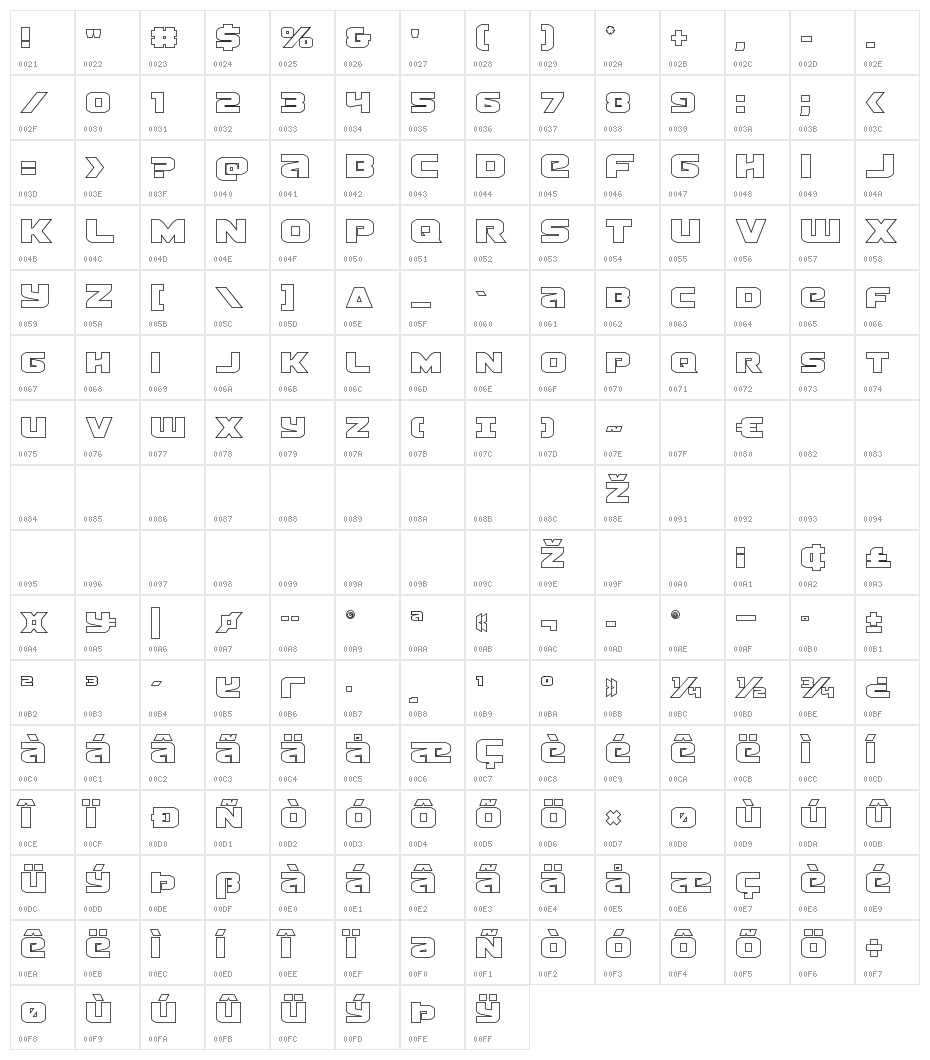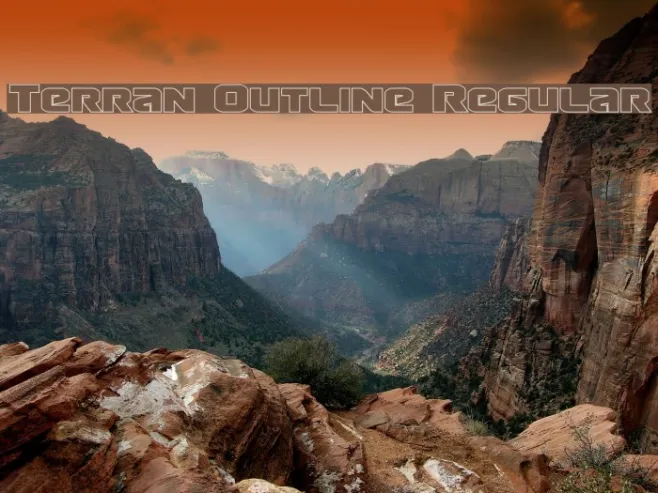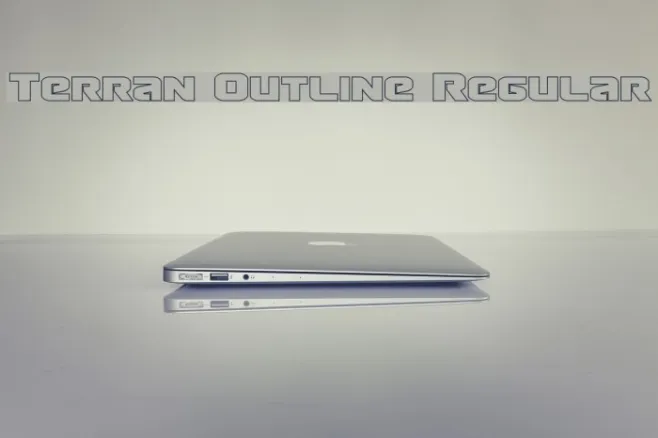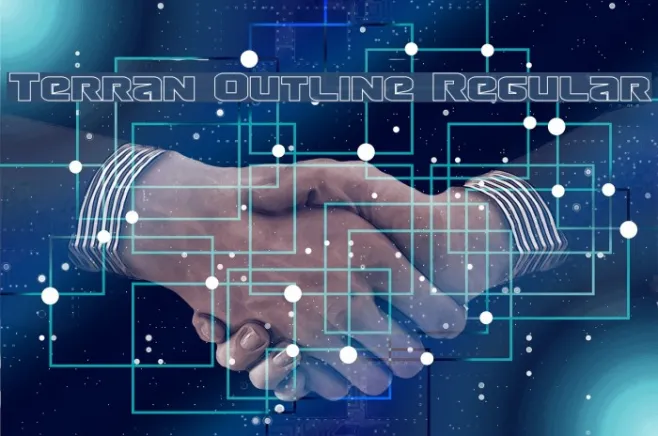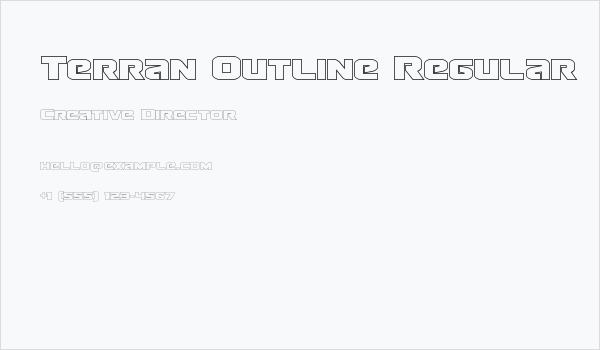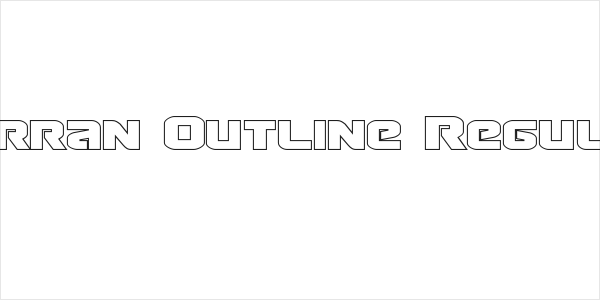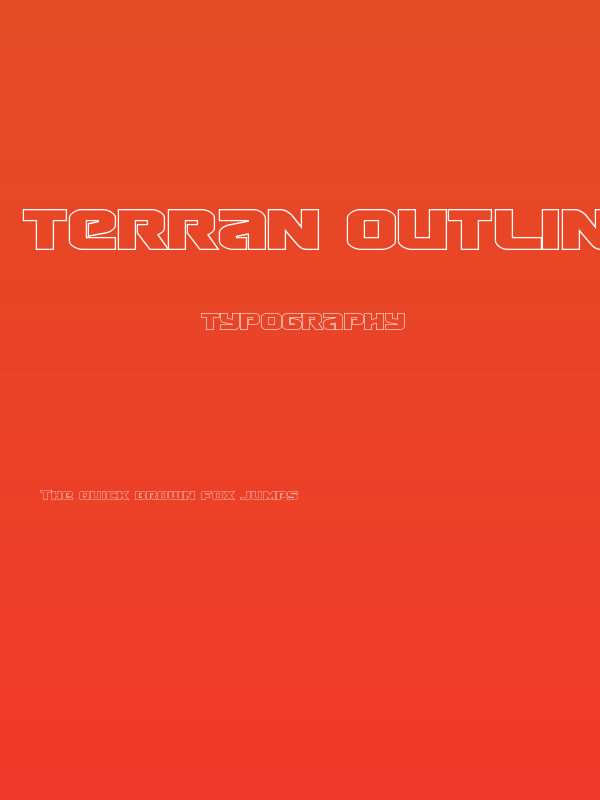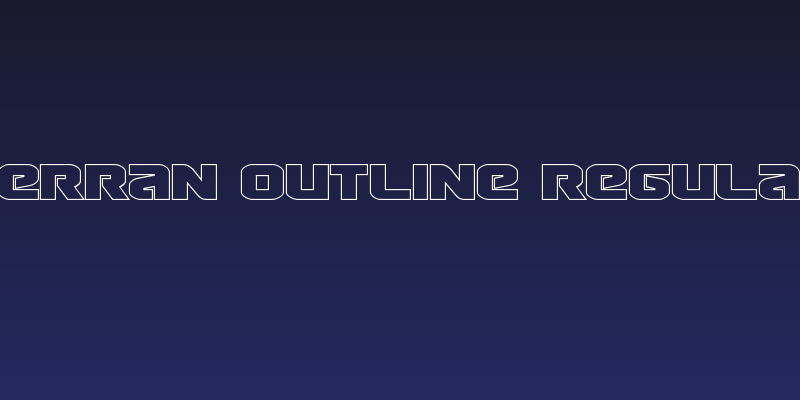
Terran Outline Regular Font
Terran Outline Regular Description
This font features a bold, geometric outline style with a futuristic and technical appearance. The characters are constructed with clean, angular lines and sharp edges, giving them a modern and industrial feel. The uppercase and lowercase letters maintain a consistent height, creating a uniform look across the text. The numerals and special characters follow the same design principles, ensuring a cohesive appearance throughout. The outline nature of the font adds a unique dimension, making it suitable for eye-catching designs.
| Proposed Projects | Ideal for sci-fi themed projects, technology branding, video game titles, and futuristic posters. |